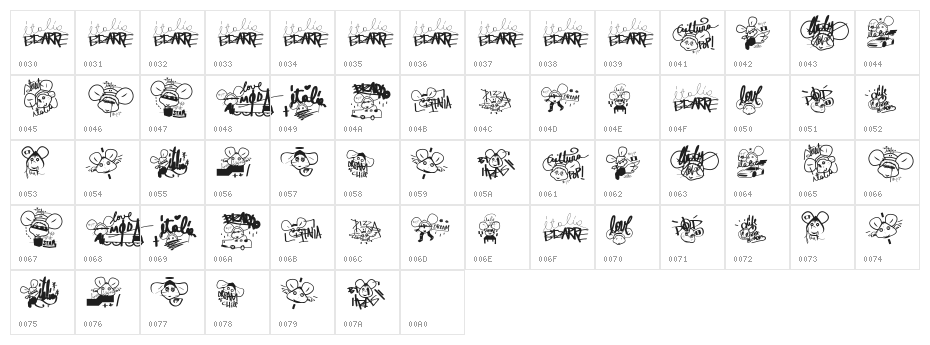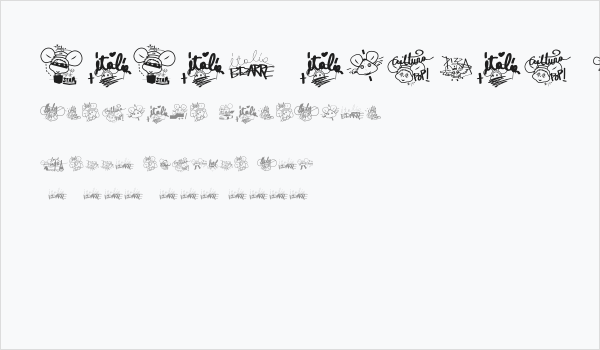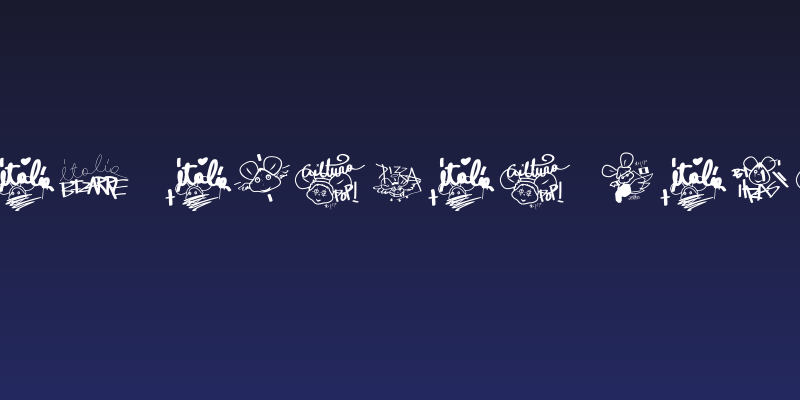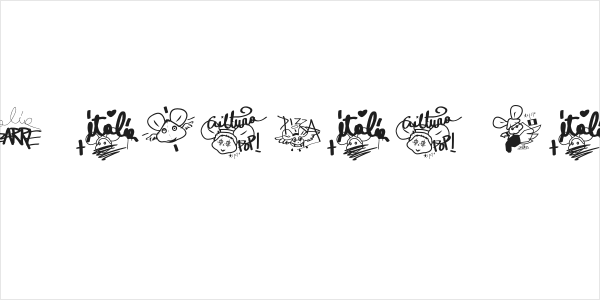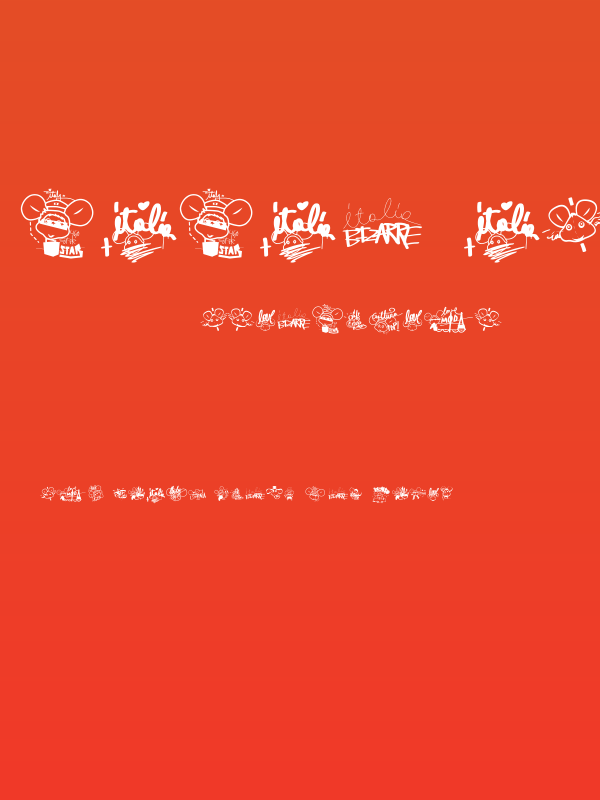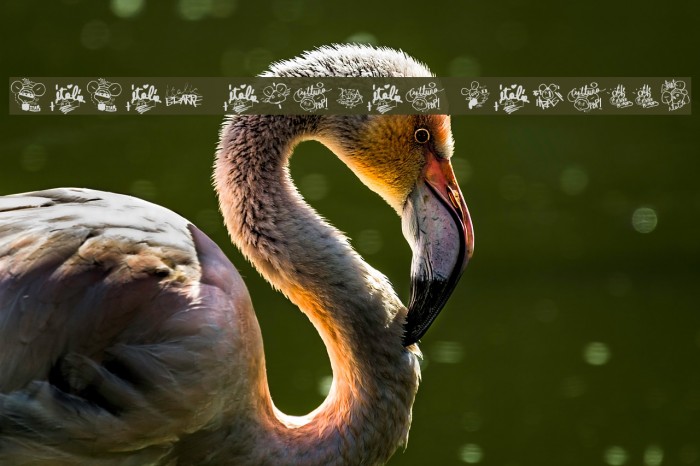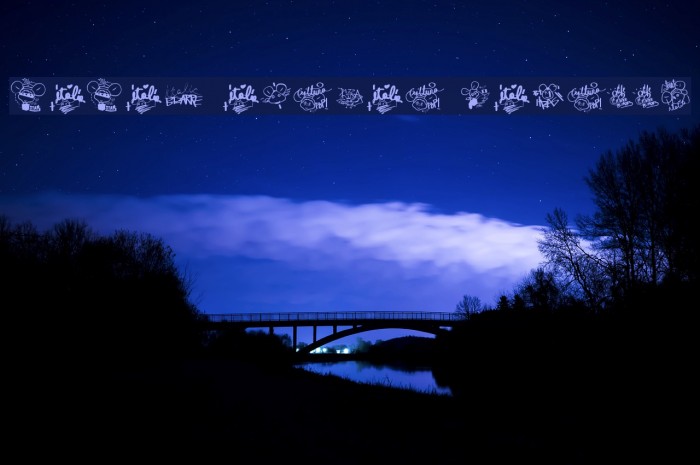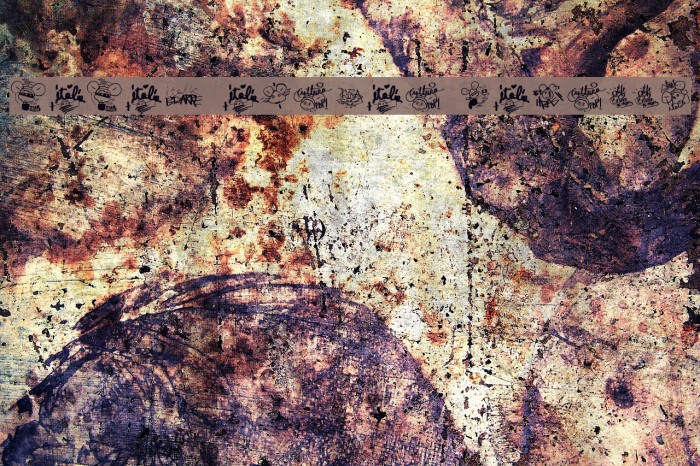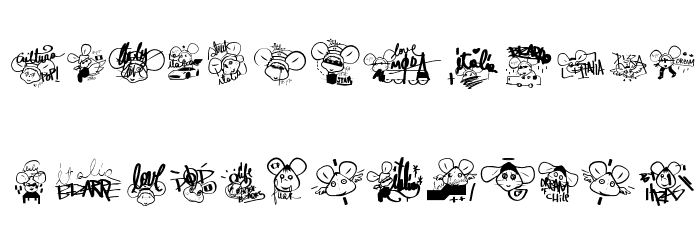
GIGIO ITALIA BIZARRE Font
| Cas d'utilisation | Logos, Posters, Artistic Designs |
| Projets proposés | Ideal for creative projects such as children's book covers, artistic posters, unique branding, and any design needing a playful and unconventional touch. |